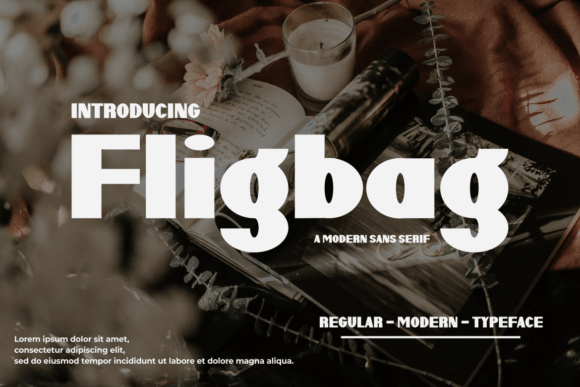
Discover the Power of Typography: Introducing the Fligbag Font
Have you ever stared at a blank canvas, struggling to find the perfect words to bring your vision to life? That’s where the magic happens – in the intersection of creativity and typography. The right font can elevate your message, evoke emotions, and leave a lasting impression on your audience.
Meet the Fligbag Font, a modern sans display font designed to take your creations to the next level. With its clean lines and sleek aesthetic, this font is the perfect companion for any project. Whether you’re designing a logo, crafting a social media post, or creating a stunning visual display, the Fligbag Font has the potential to elevate your work and leave a lasting impact.
Fligbag Font Key Features
- Unique Characteristics: Fligbag Font features a unique blend of modern and vintage elements, making it perfect for creative and artistic projects.
Fligbag Font Review
As a designer, I’m always on the lookout for unique and creative fonts to add some flair to my projects. The Fligbag Font caught my eye with its quirky and playful feel. Here’s my honest review.
- The font’s unconventional style is perfect for adding a touch of whimsy to children’s books, magazine headers, or even branding for creative businesses.
- The font is highly customizable, with a range of weights and styles available, making it easy to adapt to different design needs.
- The font’s uniqueness can be a double-edged sword – while it’s great for creative projects, it may not be suitable for more formal or professional designs.
- The font’s irregular shape and letterforms may be challenging to read for some users, particularly in smaller font sizes.
The Fligbag Font is a great option for designers looking to add a touch of personality to their projects. While it may not be suitable for every design need, its unique style and customization options make it a valuable addition to any designer’s toolkit.
Tips for Getting the Most Out of Fligbag Font
Use Fligbag Font for titles, headings, and emphasis in your designs.
Combine Fligbag Font with other fonts to create a unique visual identity.
Alternatives to Fligbag Font
Montserrat is a modern sans-serif font designed by Julieta Ulanovsky. It is a clean and geometric font, perfect for use in digital interfaces, signage, and branding materials. Montserrat is a great alternative to Fligbag Font for designers who want a sleek and contemporary look. Unlike Fligbag Font, Montserrat is more versatile and can be used in a wide range of applications, from body text to headings.
Avenir is a geometric sans-serif font designed by Adrian Frutiger. It is a highly legible font that is suitable for use in both print and digital media. Avenir is a good alternative to Fligbag Font for designers who want a font with a strong, modern feel. Unlike Fligbag Font, Avenir has a more subtle and elegant look, making it perfect for use in branding materials and luxury products.
Open Sans is a modern sans-serif font designed by Steve Matteson. It is a clean and highly legible font that is perfect for use in digital interfaces and body text. Open Sans is a great alternative to Fligbag Font for designers who want a font that is easy to read and understand. Unlike Fligbag Font, Open Sans is more versatile and can be used in a wide range of applications, from digital interfaces to print materials.